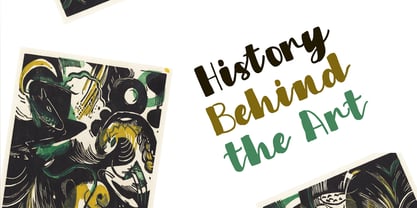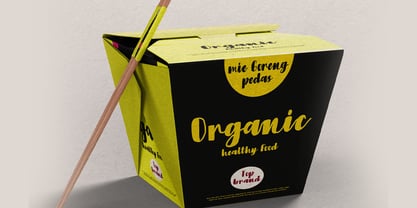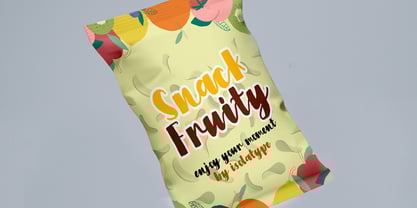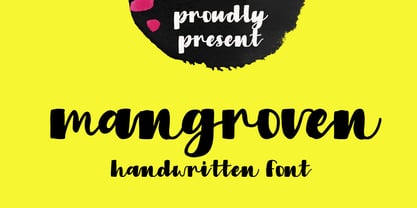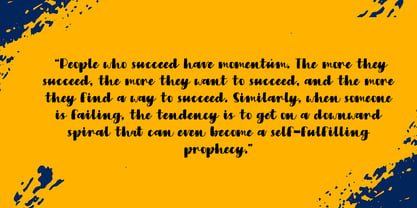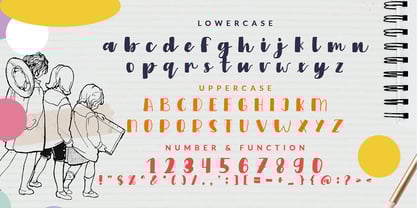
Mangroven
by Wildan Type
The Mangroven Font Family was designed by Wildan Suprian Syah and published by Wildan Type. Mangroven contains 2 styles and family package options.
The mangrove has a unique hand-drawn style, giving an organic and authentic impression. The rough texture adds a charming human touch, enhancing the natural feel of each character. Its letters are cheerful yet still easy to read. It is ideal for projects that require an organic and quirky impression.This font conveys a sense of honesty and approachability, making it suitable for various design projects such as posters, logos, branding, tabloids, or product packaging.
Designers: Wildan Suprian Syah
Publisher: Wildan Type
Foundry: Wildan Type
Design Owner: Wildan Type